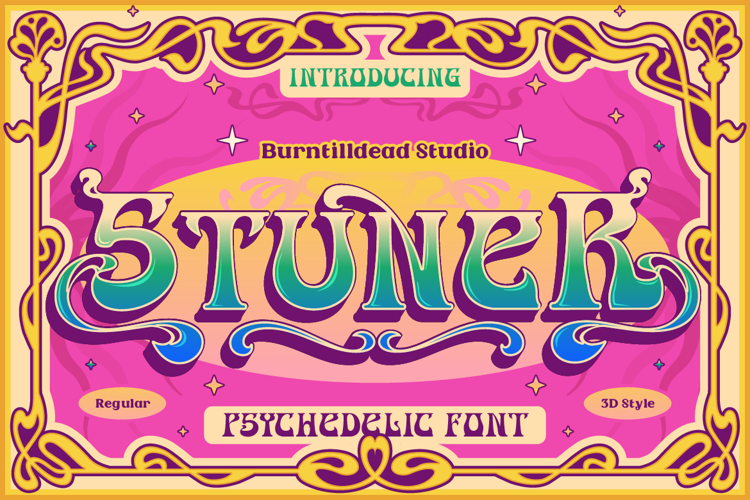
Proudly present, Stuner, a playful, psychedelic font that blends 60s-70s retro energy with a contemporary edge. Available in 2 styles: Regular & 3D. Its asymmetrical shapes give it a handmade, vintage feel, while the 3D style makes the letters look like they are getting high off the page with trippy dimensional effect.
Let Stuner turn your designs into a trippy visual experience!